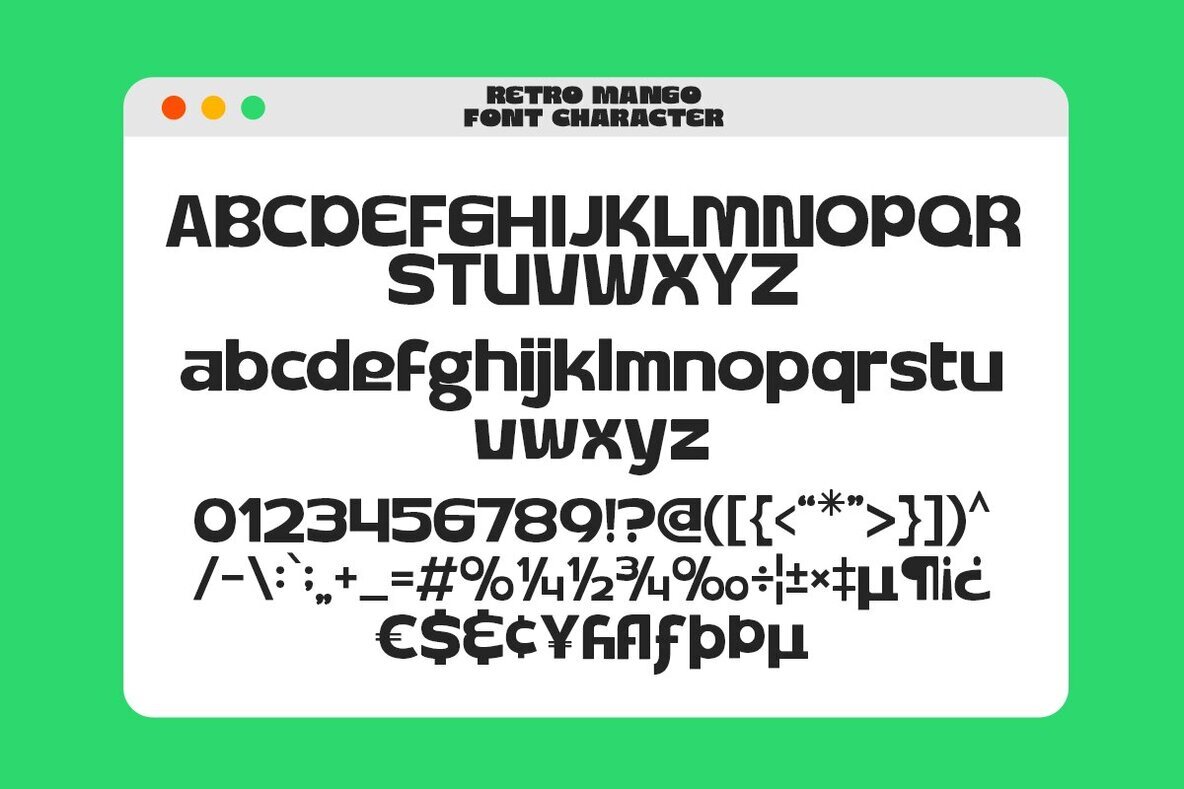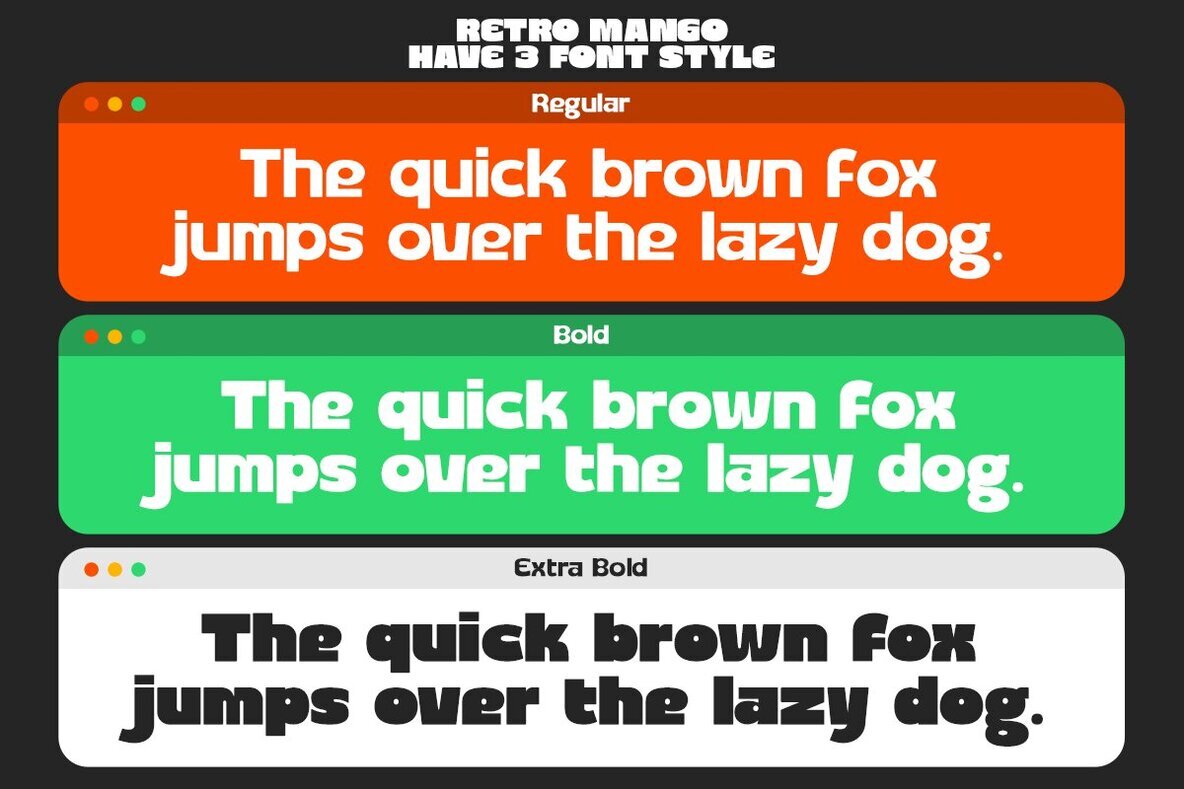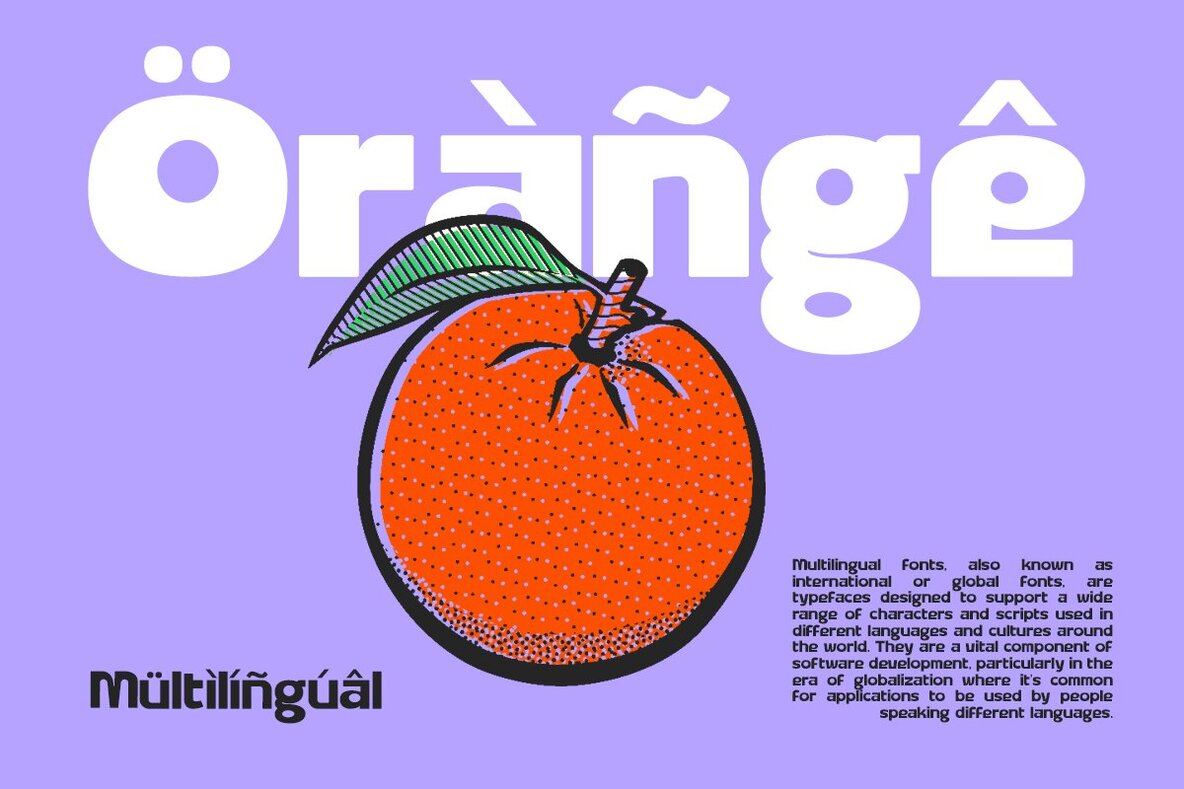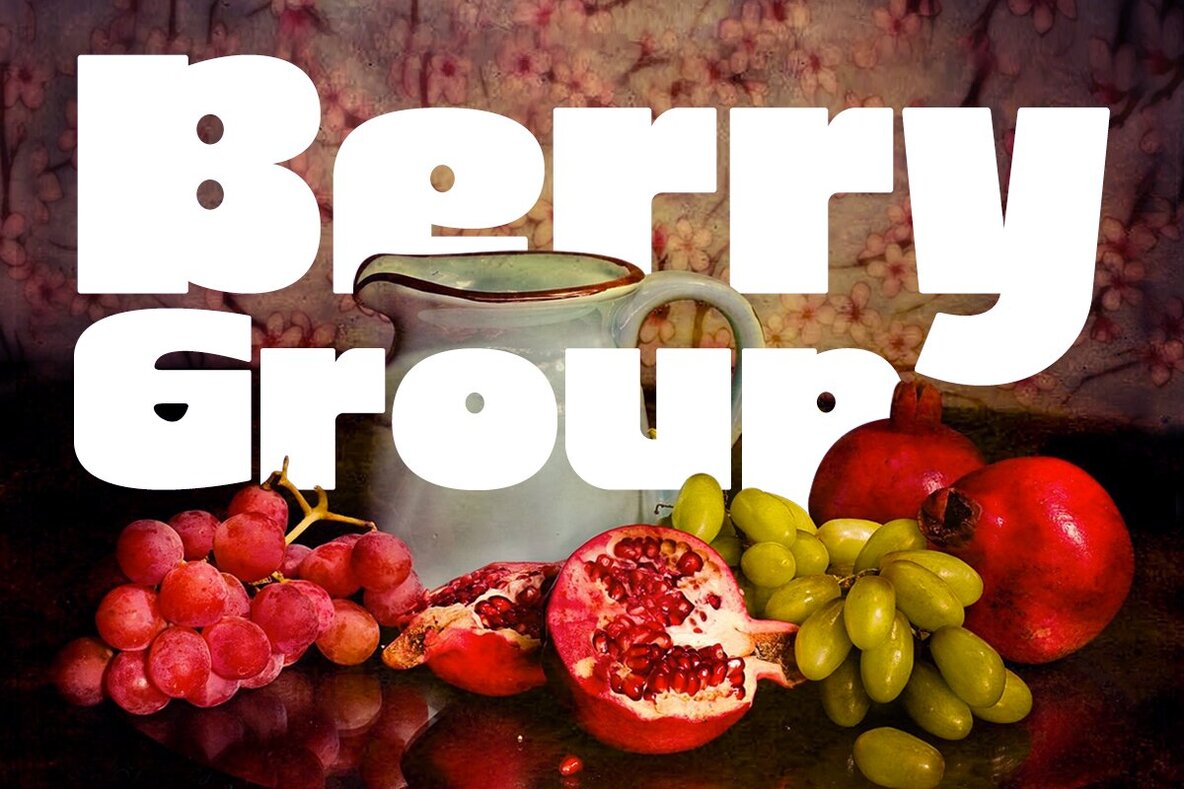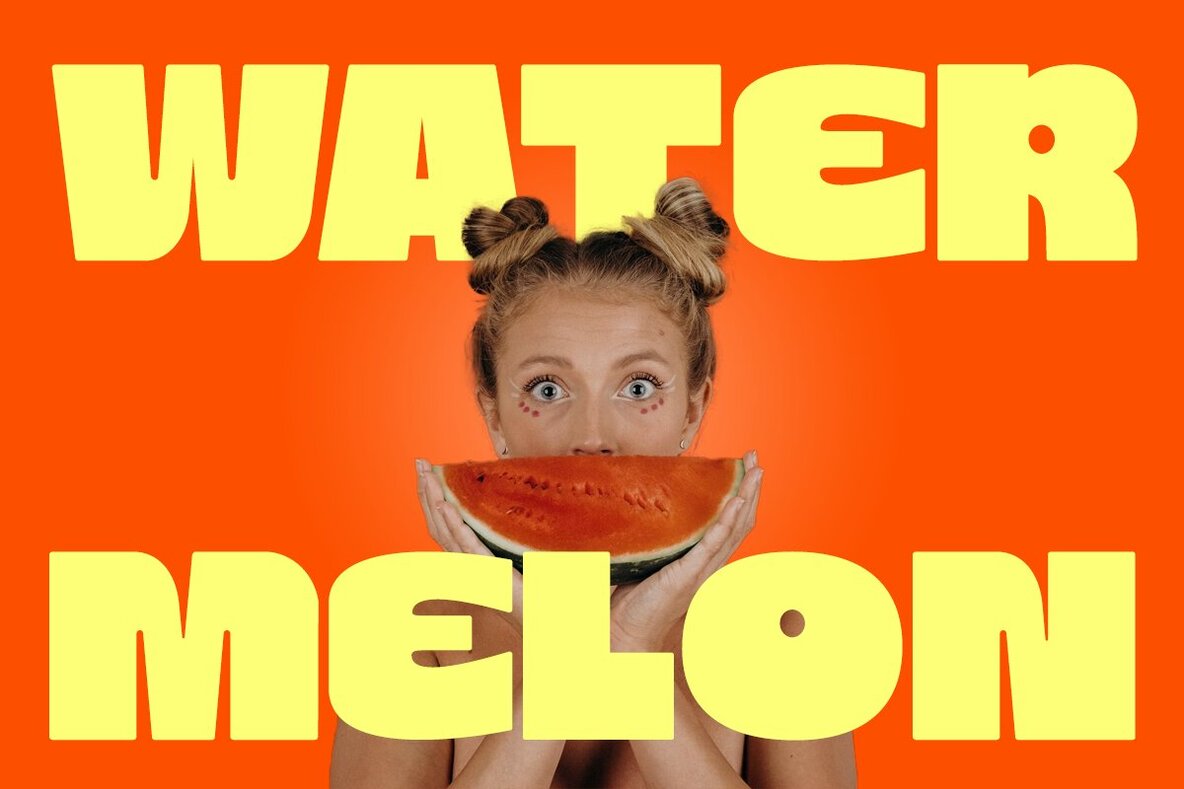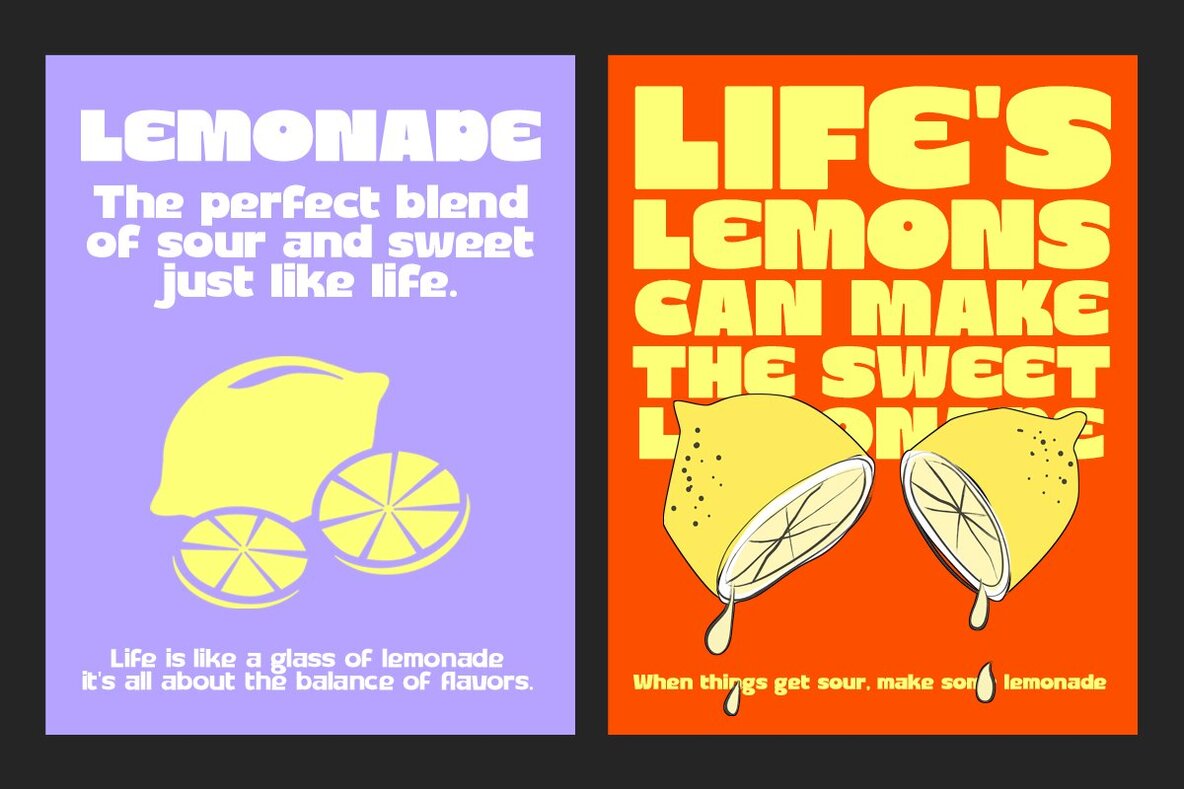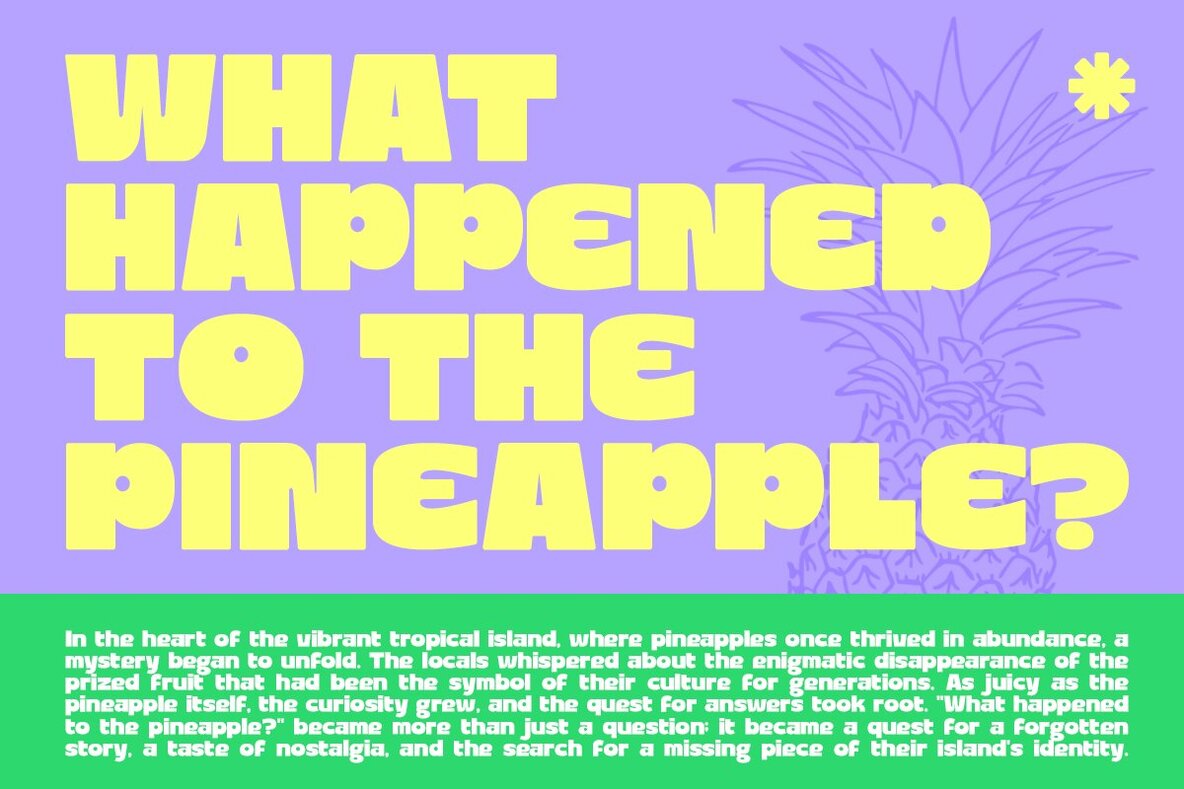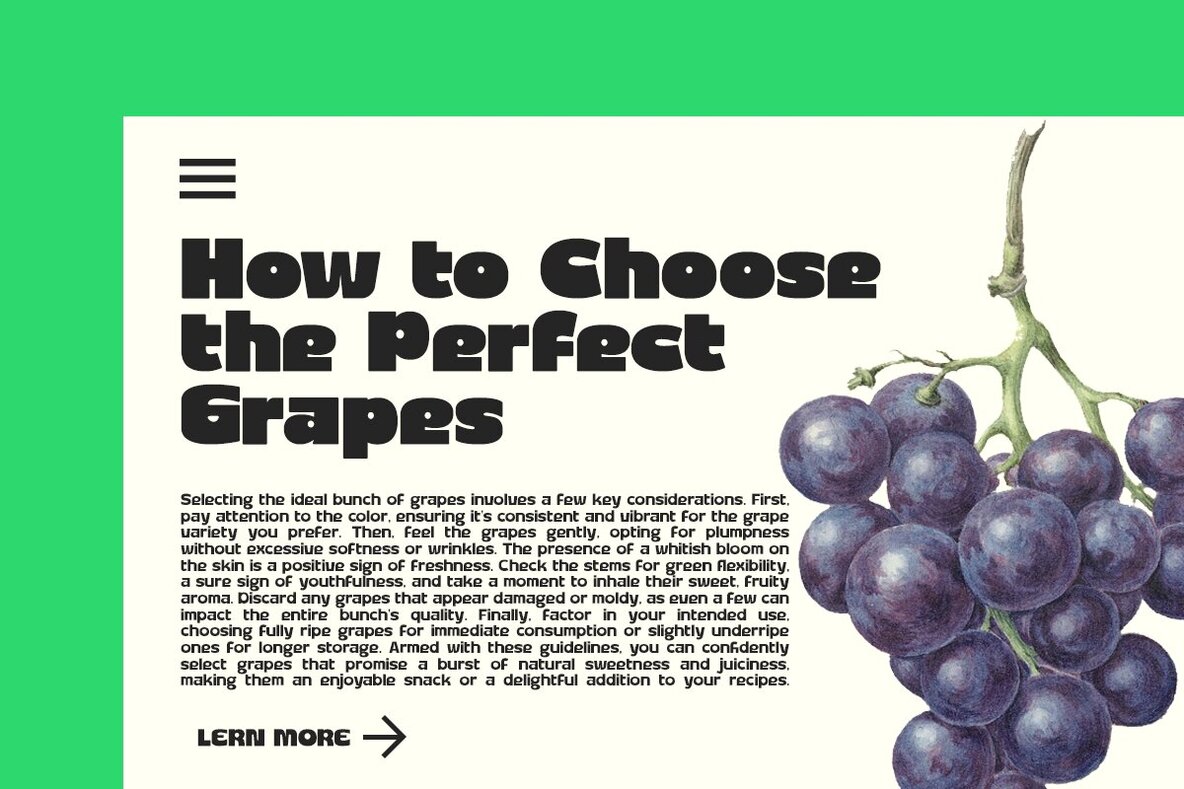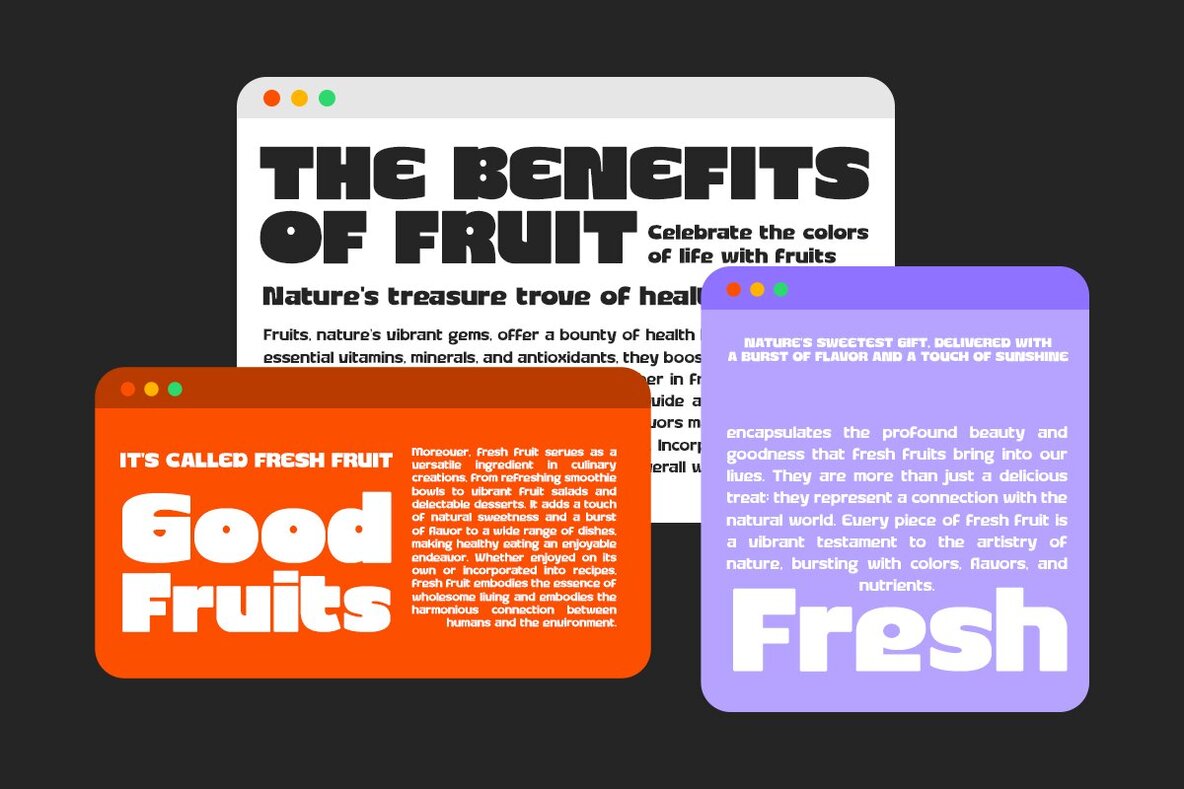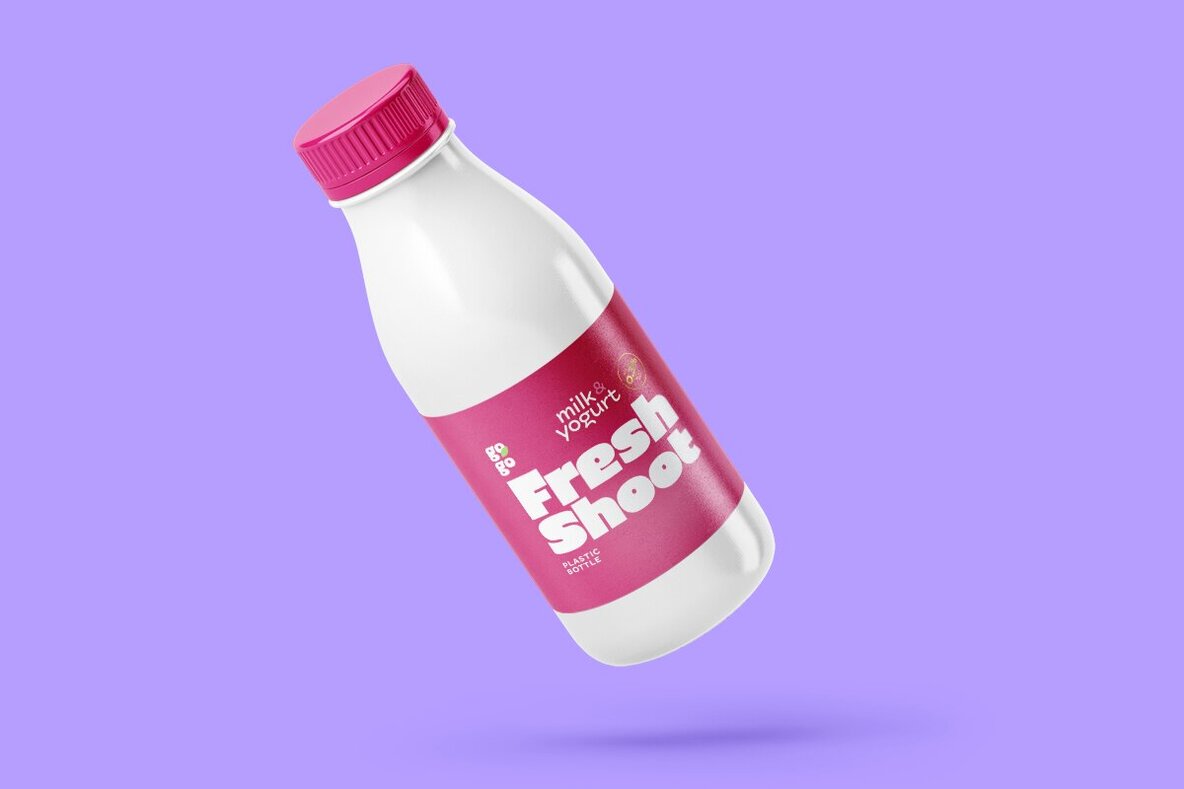
Retro Mango Font
Say hello to Retro Mango! The font that's as chunky as it is funky! Retro Mango is all about playful, bold vibes, with a dash of cuteness that's hard to resist, thanks to its soft corners. This font is like a friendly face you just want to hug, and it brings that fun-loving spirit to your designs. Plus, you get three family styles to choose from: Regular, Bold, and Extra Bold to helps to create stunning logos, quotes, posts, blog posts, branding projects, magazine imagery, wedding invitations, and much more. What's Included?